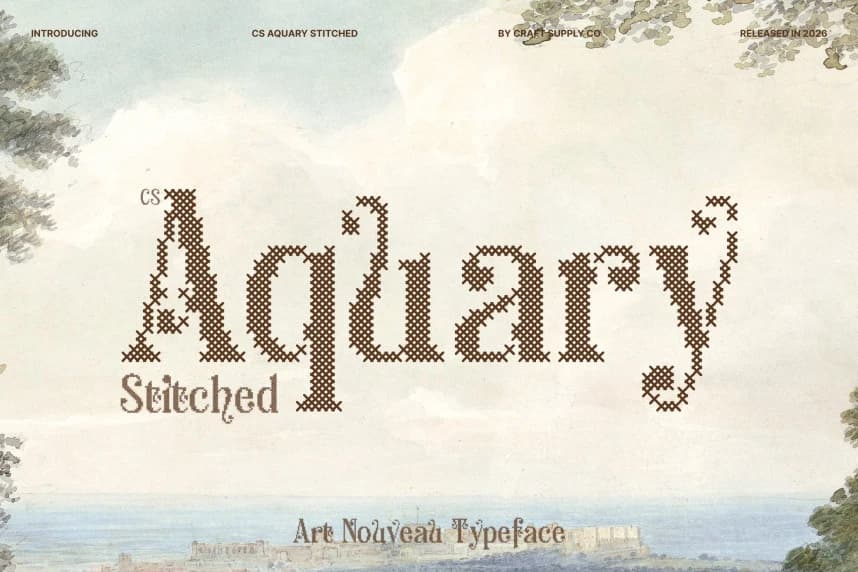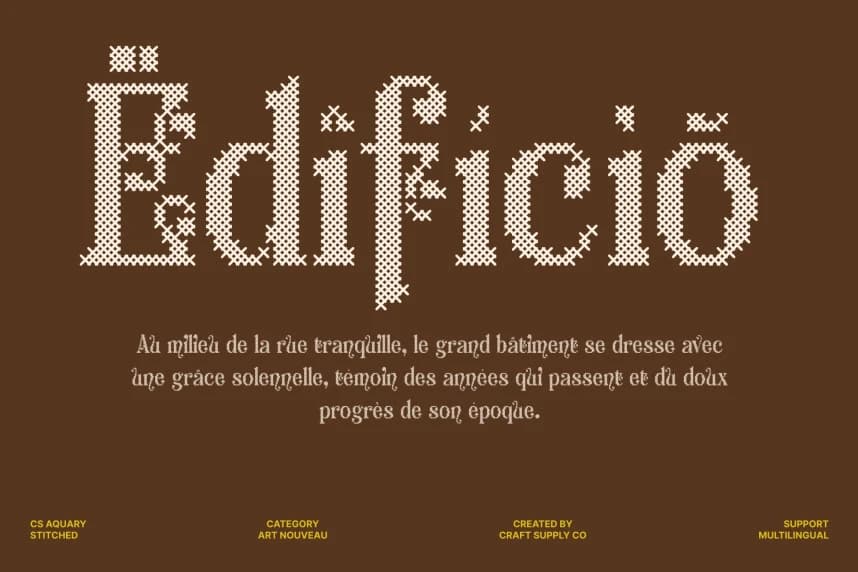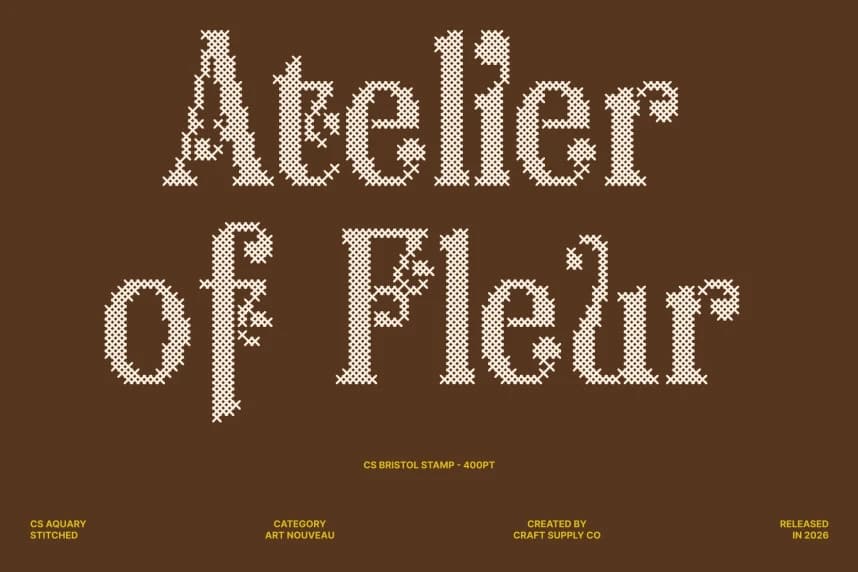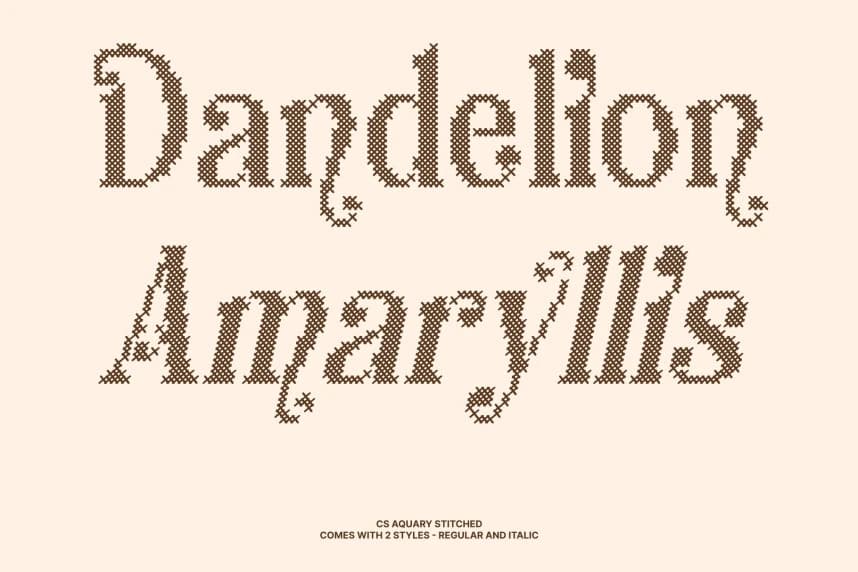
CS Aquary Stitched Font
CS Aquary Stitched Font – Fantasy Display Serif Font Enchanting Fantasy Style with Handcrafted Detail. This is a fantasy display serif font designed to bring enchantment and elegance to your creative projects.